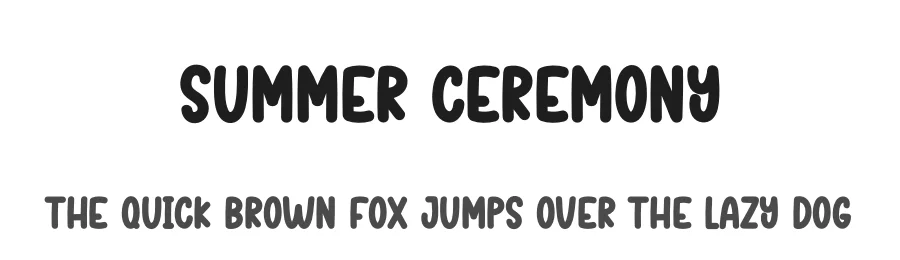
About Thick Design Font
Thick Design Specifications
| Font Family | Thick Design |
| Full Name | Thick Design |
| PostScript Name | ThickDesignRegular |
Thick Design supports 209 languages.
Browse all βWhat pairs well with Thick Design Font?
Thick Design Font is a script font that shines as a display or heading face. Pair it with a clean sans-serif or serif font for body text β the contrast creates a clear hierarchy while the two styles stay balanced and easy to read.
Thick Design Font